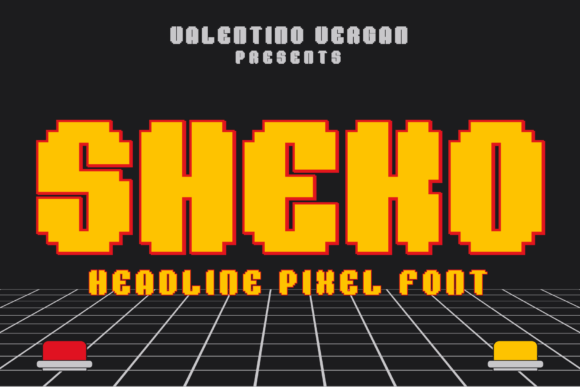
Introducing Sheko Font, the ultimate choice for your bold and captivating designs! Created by the talented valentinovergan, this display font is the perfect tool to elevate your projects and leave a lasting impression on your audience.
Sheko Font is not your ordinary typeface. It is a creative headline pixel font specifically crafted to add a touch of retro charm to any design. With its bold and tight kerning, Sheko effortlessly captures attention and makes your headlines stand out from the rest.
Whether you're working on a vintage-themed website, a print advertisement, or even a social media post, Sheko Font will surely make a statement. Its striking letters and unique style make it ideal for bold and eye-catching designs that demand attention.
But what truly sets Sheko Font apart is its versatility. It can be seamlessly integrated into a wide range of projects, both online and offline. From website banners to posters, from logos to packaging, this font is your go-to choice for adding a touch of retro flair to your creations.
When you choose Sheko Font, you not only get the regular version but also the oblique variant. This means you have even more flexibility and creative freedom to experiment with different styles and angles. The font is available in both .ttf and .otf formats, ensuring compatibility with various design software and platforms.
Dive into the world of Sheko Font and let your imagination run wild. Unleash your creativity and transport your audience to a bygone era with this captivating typeface. Whether you're a seasoned designer or just starting out, Sheko Font will undoubtedly become your secret weapon for creating stunning, attention-grabbing designs.